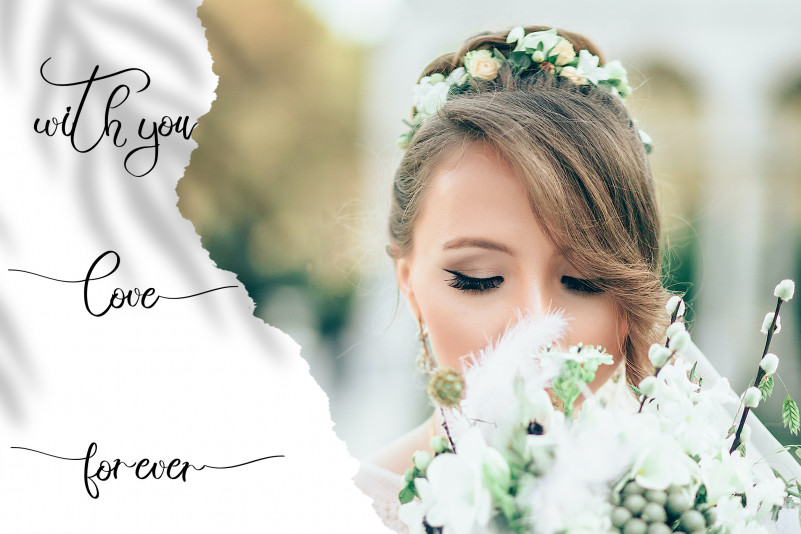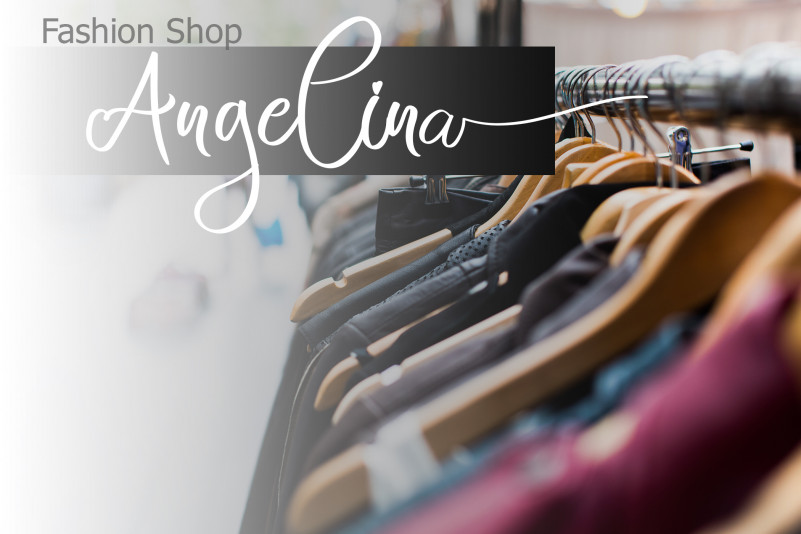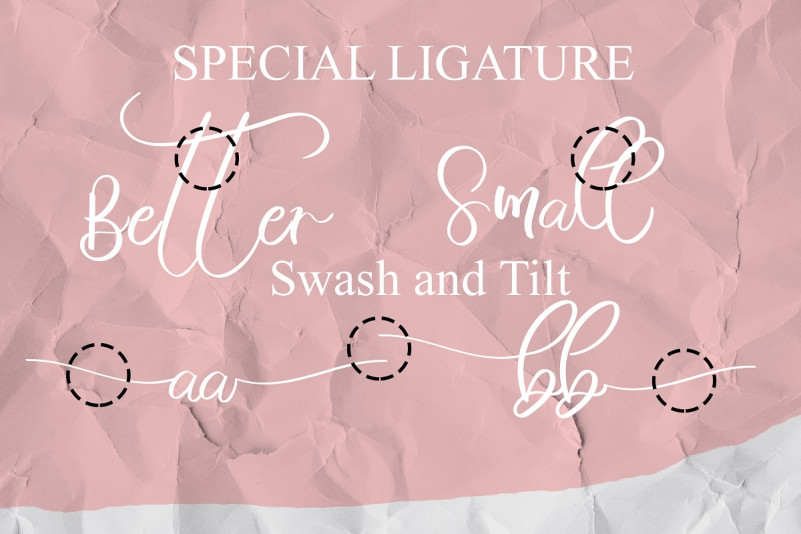
Bahagia Font
Bahagia Calligraphy Font
This is a beautiful light handwritten font with a unique feel and a stunning impact. It will add a luxury spark to any design project that you wish to create!